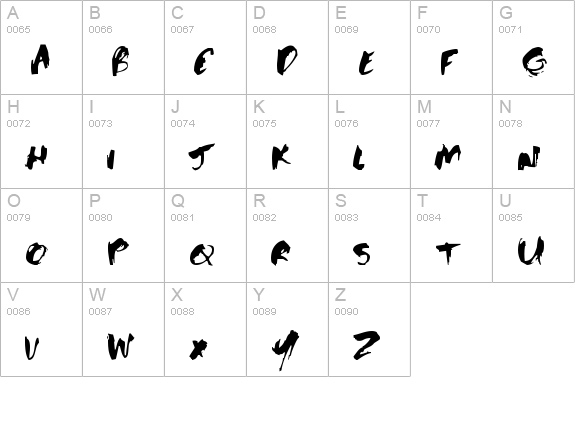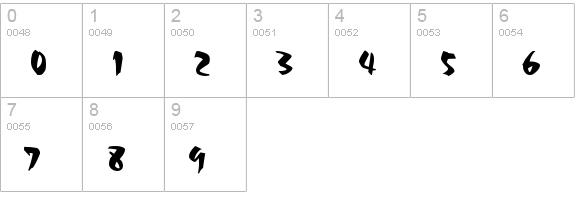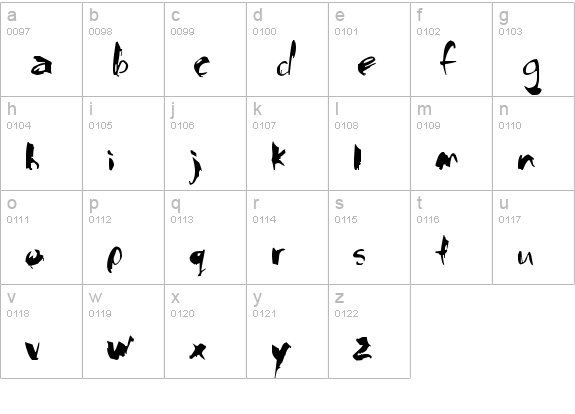
VNIThufapfan Normal Font Details
VNIThufapfan Normal is the standard, neutral variant in the VNIThufapfan typeface family \xE2\x80\x94 well suited to general body text, paragraphs, and standard typographic work.